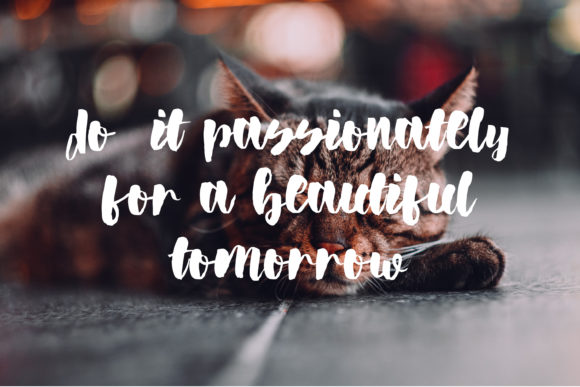
Gwondrong Brush  Font
About Gwondrong Brush  Font
Gwondrong Brush is a beautiful handwritten font, designed with the help of an outstanding, thick brush pen. Fall in love with its incredibly versatile style and use it to create gorgeous wedding invitations, beautiful stationary art, eye-catching social media posts, and much more!